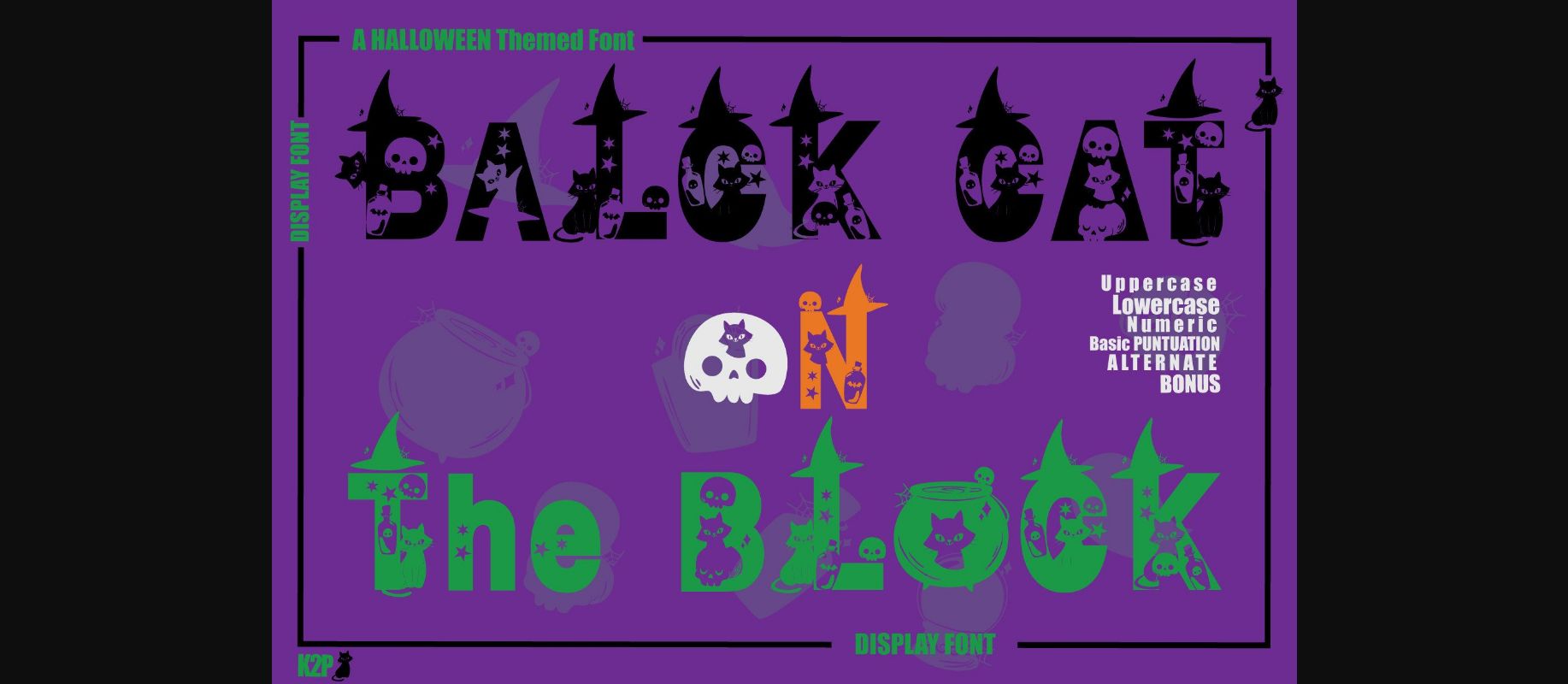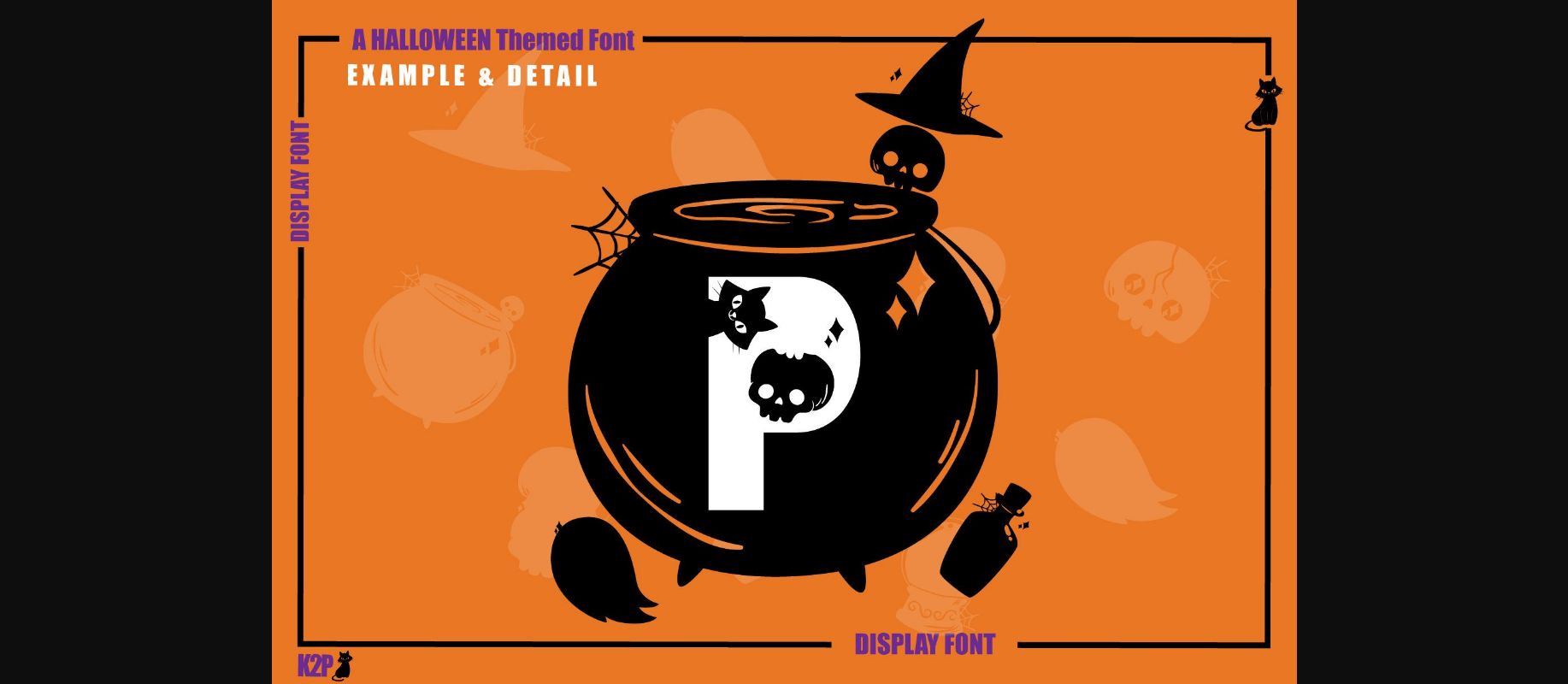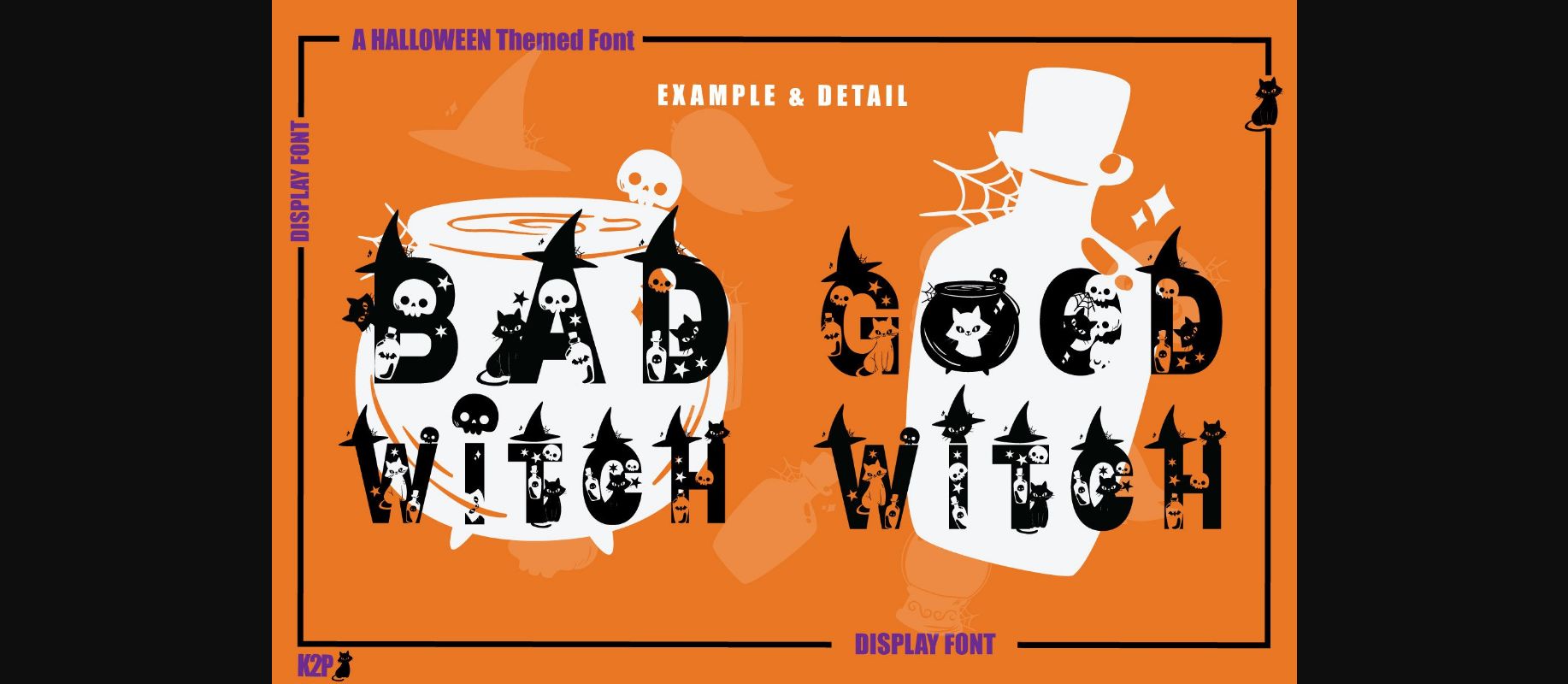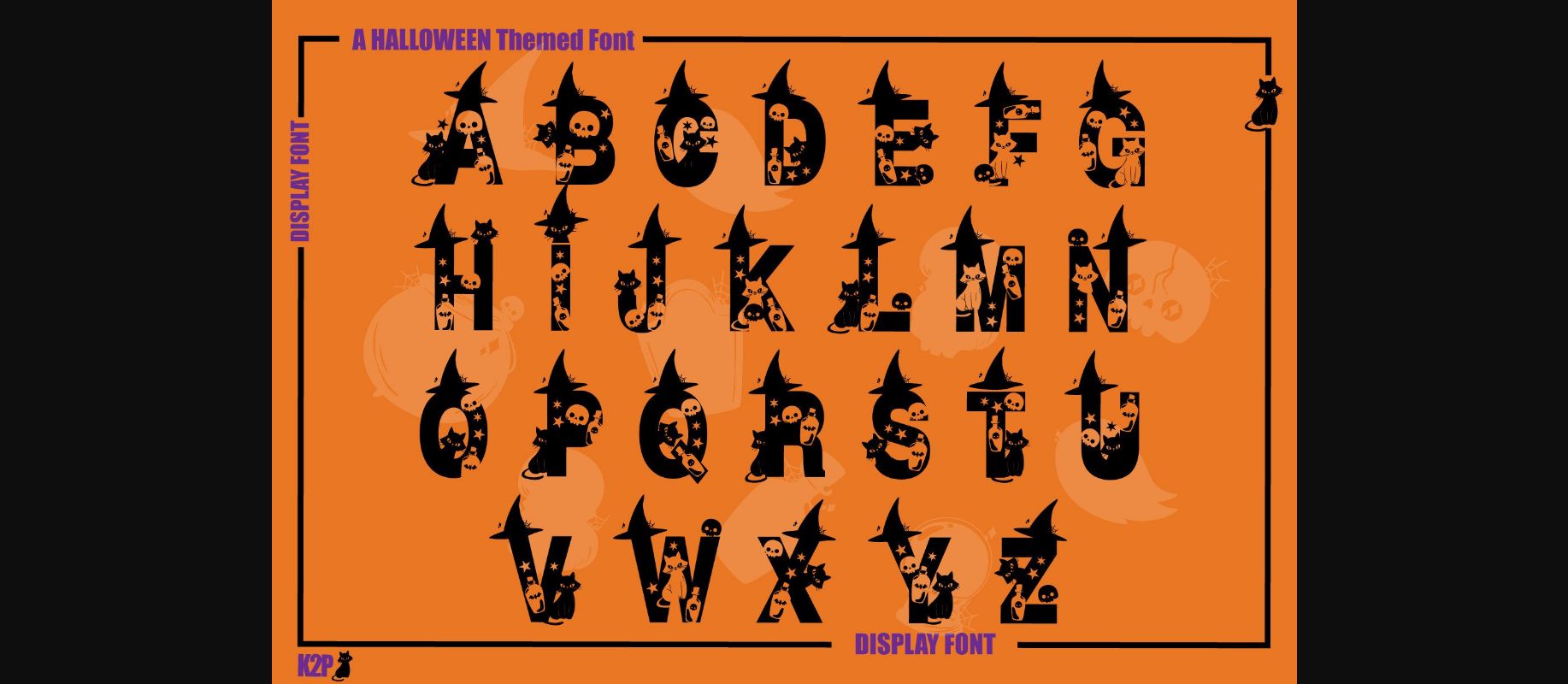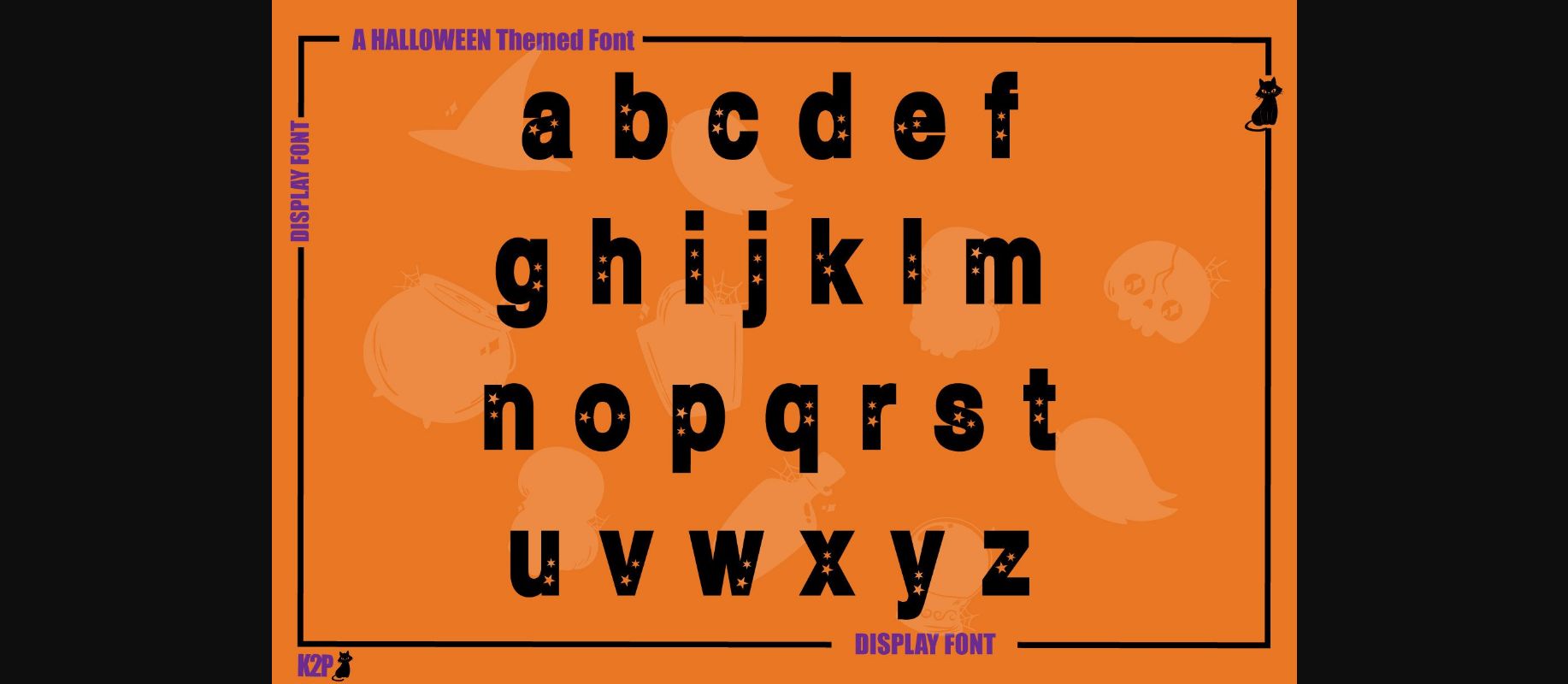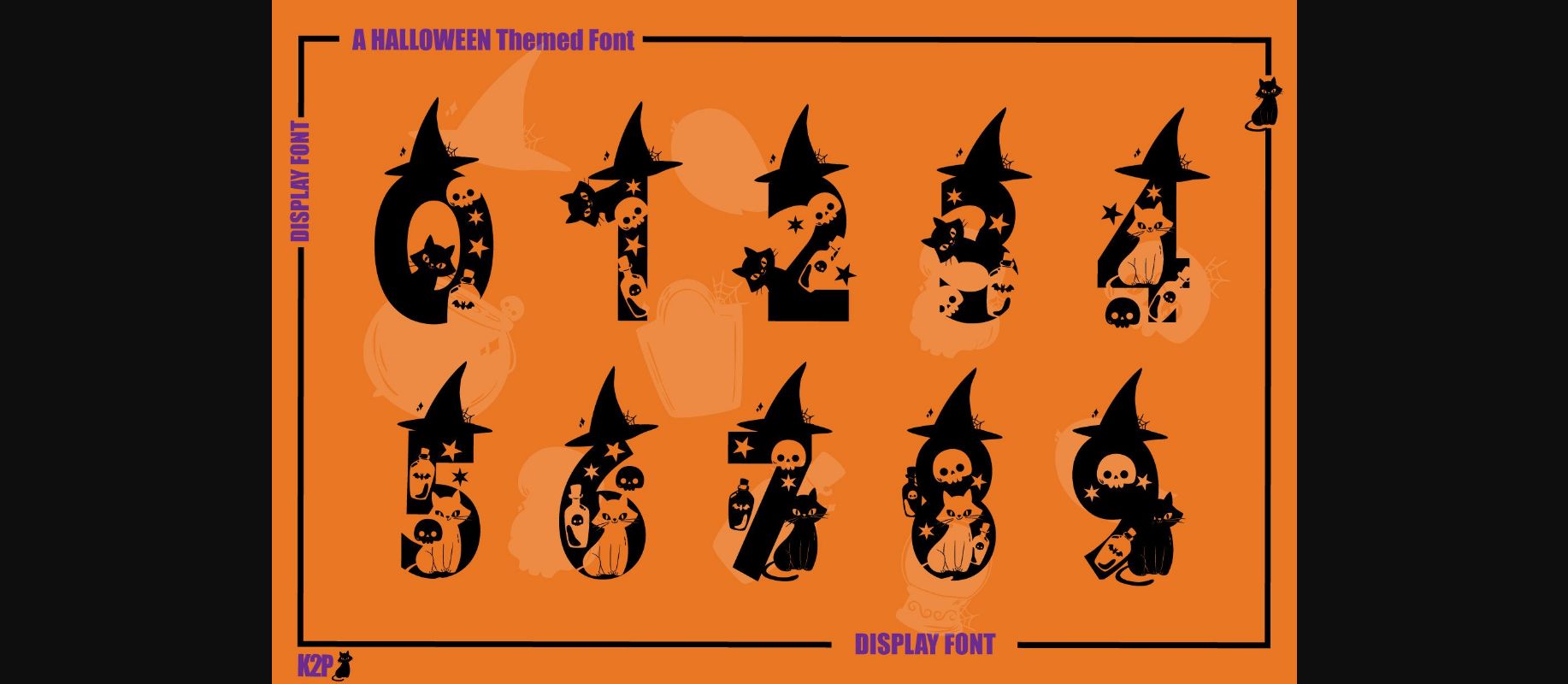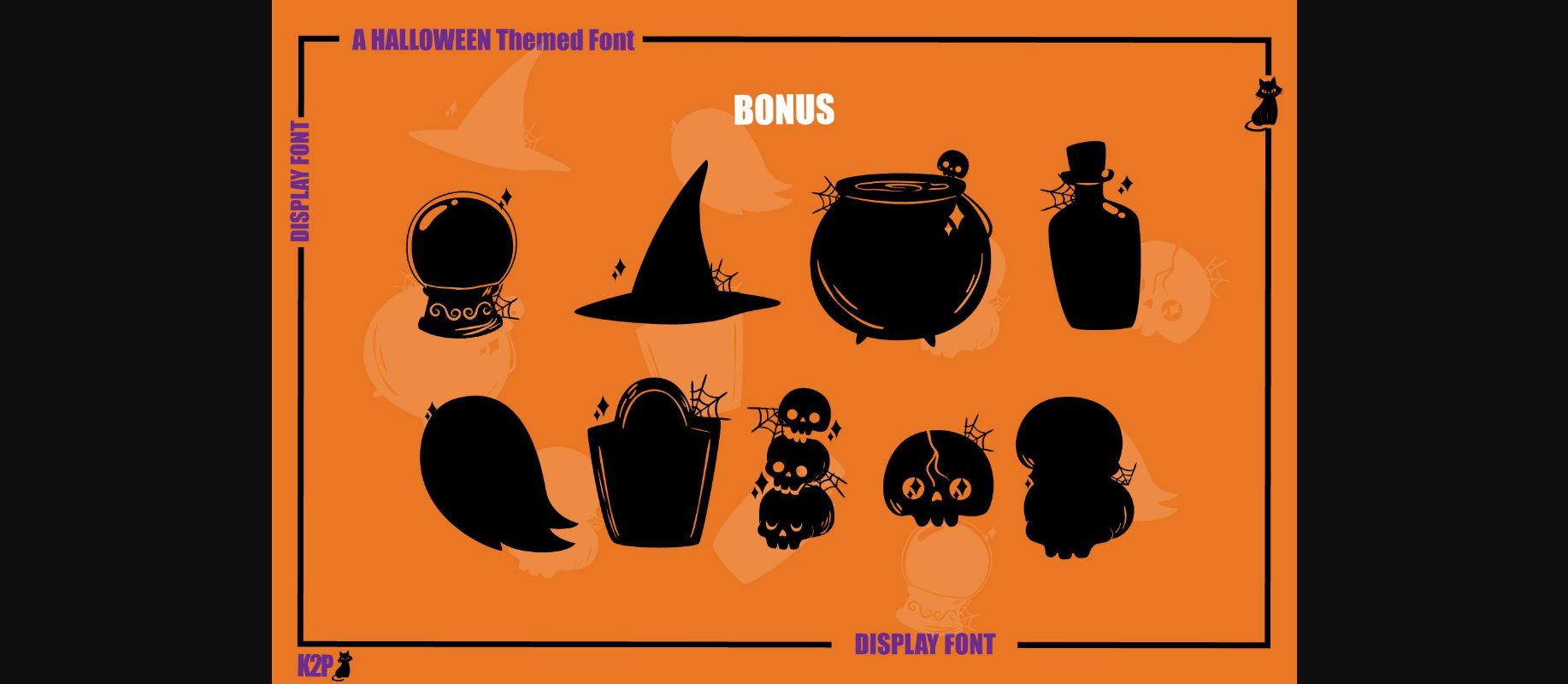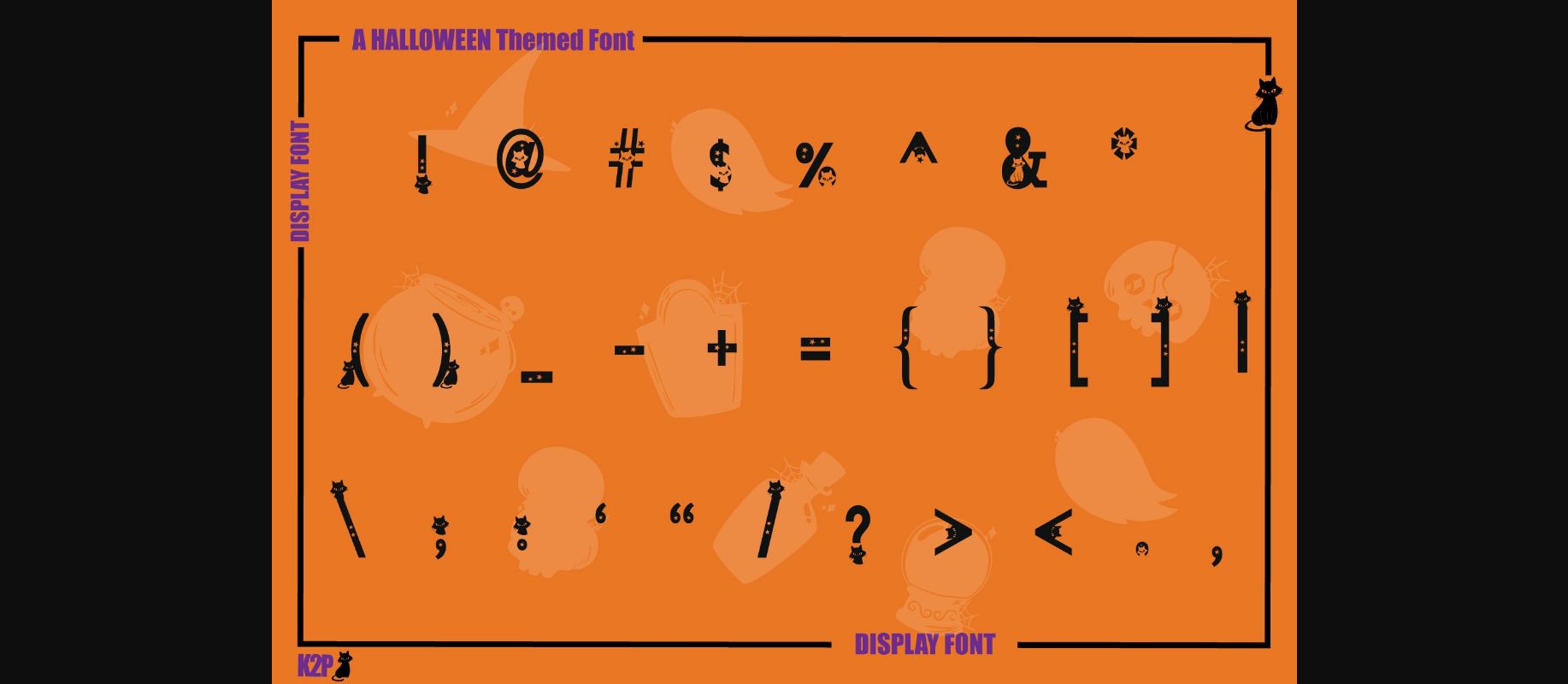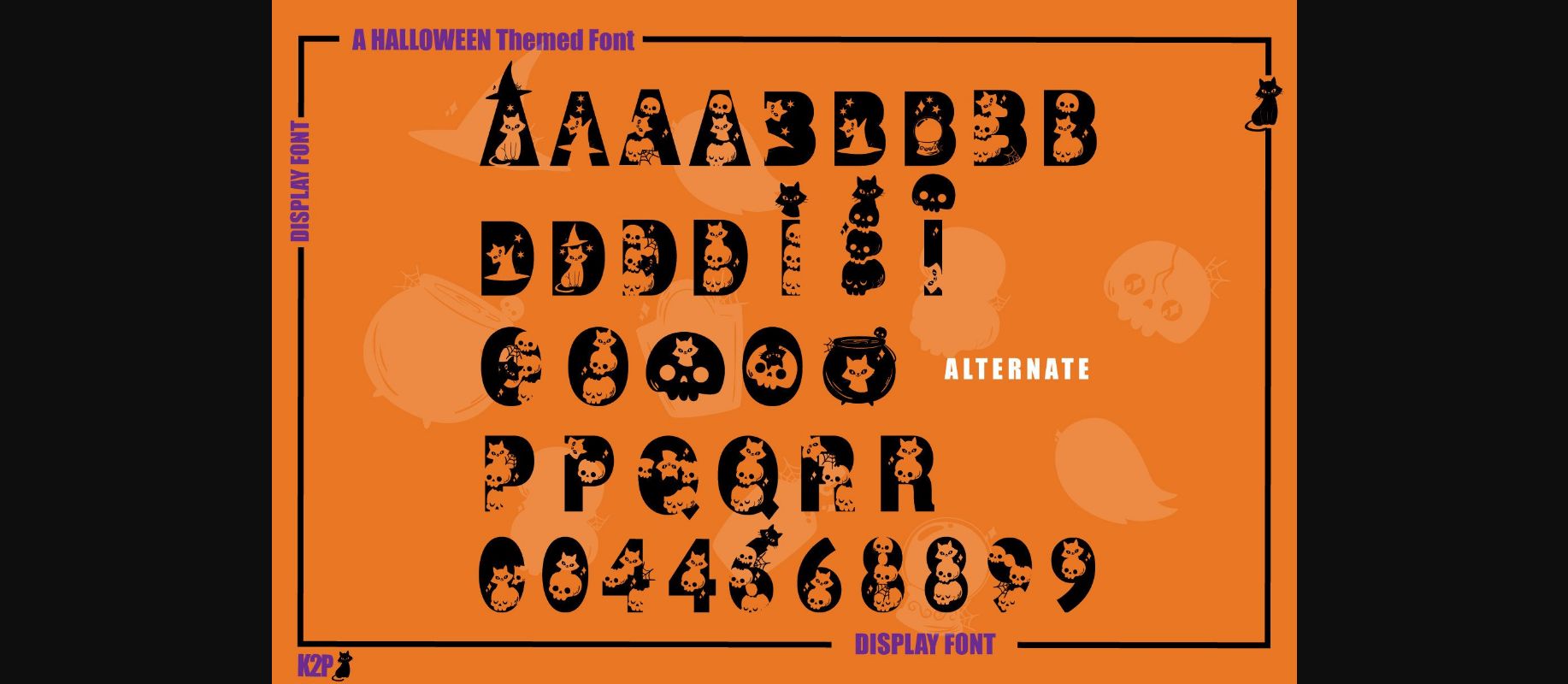
Black Cat on the Block Font
About Black Cat on the Block Font
Black Cat On The Block is a spooky and dramatic decorative font. It is perfectly suitable for any Halloween-related project or crafty idea! This font is PUA encoded which means you can access all glyphs and swashes with ease!